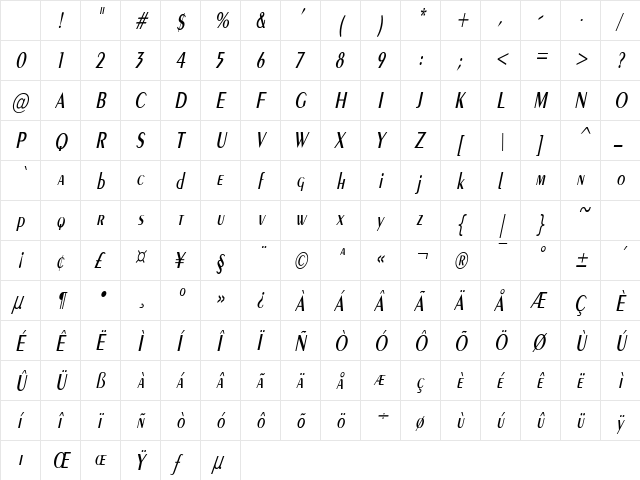
Complete PenwinCondensed Oblique glyph index. Displaying only characters natively supported by PenwinCondensed Oblique font.
PenwinCondensed is a composed and adaptable typeface that performs quietly and consistently across a wide range of design contexts. The slanted form adds forward momentum and visual energy. Its narrow stance lets it pack a punch even in space-constrained designs.
Pro Tip: Use PenwinCondensed for emphasis, pull quotes, and subheadings where its slanted energy can add rhythm to the layout.